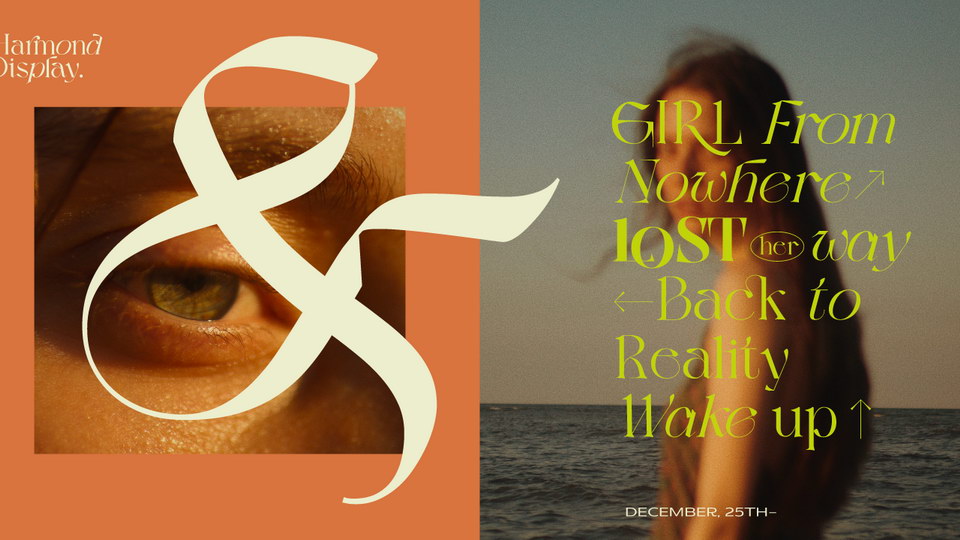
Harmond is a new fresh and modern display serif with a strong and sharp look. This typeface both impressive at display sizes and easily readable in text size, while the sharp shapes of the triangular serifs and the distinctive letter shapes show their strength in logo design and impressive editorial use.